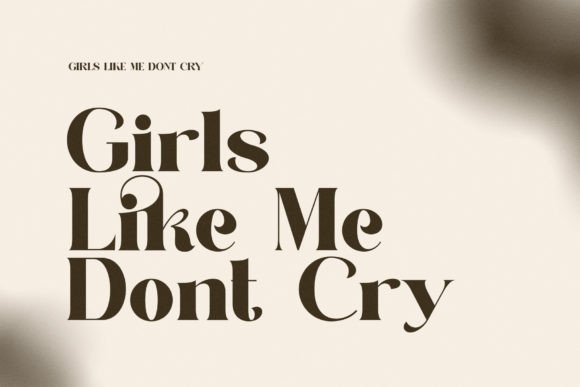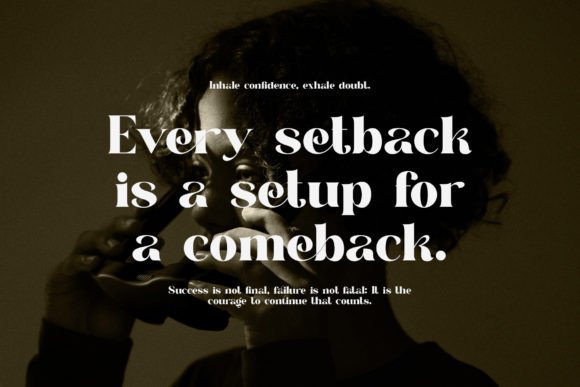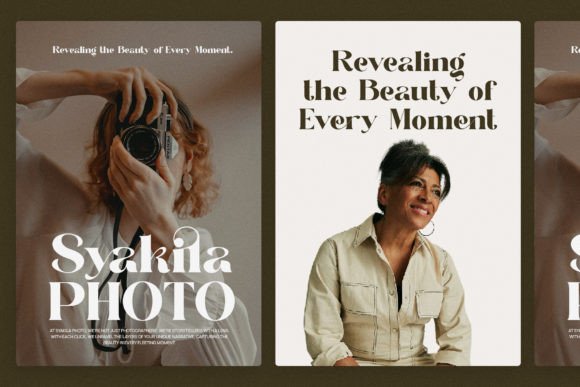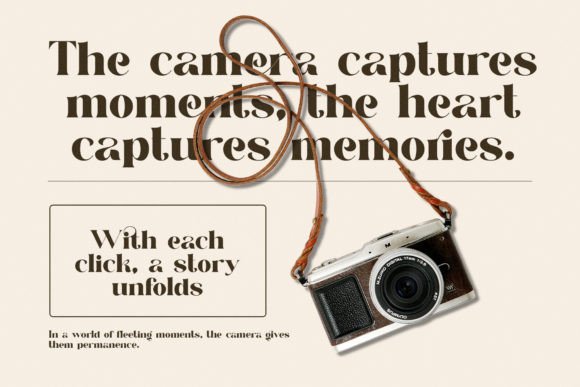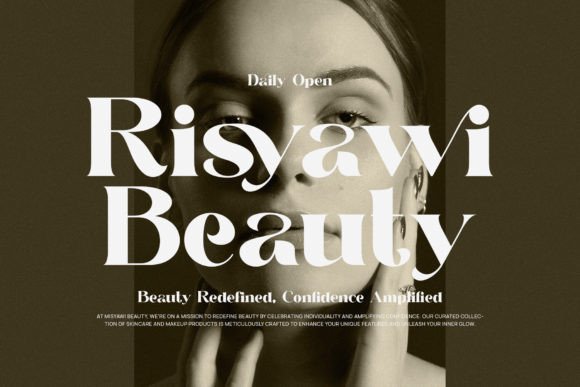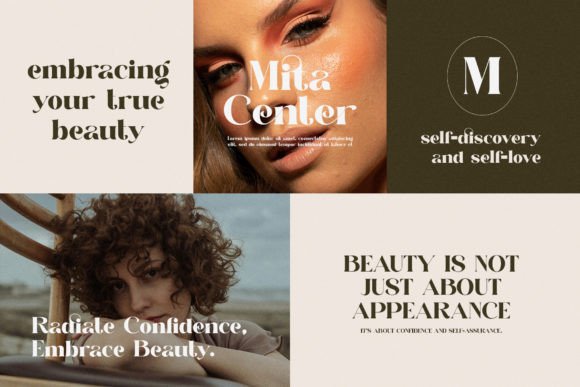
Introducing Genik Font: Elevate Your Designs with Elegance and Sophistication
Are you a designer or crafter looking for a font that exudes elegance and sophistication? Look no further than Genik Font, a stunning serif font that is sure to elevate the beauty of your projects. With its delicate and classy look, Genik is the perfect choice for those who want to add a touch of refinement to their designs.
What Makes Genik Font So Special?
Genik Font is an elegant serif font that features a very delicate and classy look. Not too thin and not too thick, balanced and varied, Genik was designed to enhance the beauty of your projects. The font’s balanced strokes and varied letterforms create a sense of harmony and visual flow, making it perfect for a wide range of design applications.
Key Features of Genik Font
- Elegant Serif Design: Genik Font features a classic serif design that is both timeless and sophisticated.
- Delicate and Classy Look: The font’s delicate and classy look makes it perfect for designs that require a touch of elegance.
- Balanced and Varied: Genik Font’s balanced strokes and varied letterforms create a sense of harmony and visual flow.
- Perfect for a Wide Range of Design Applications: From luxury brands to elegant wedding designs, Genik Font is versatile enough to be used in a variety of design projects.
Why Choose Genik Font?
There are many fonts available that claim to be elegant and sophisticated, but Genik Font stands out from the rest. Here are just a few reasons why:
- Unique and Distinctive: Genik Font has a unique and distinctive look that sets it apart from other serif fonts.
- Highly Legible: Despite its delicate look, Genik Font is highly legible, making it perfect for body text and headlines.
- Easy to Pair with Other Fonts: Genik Font pairs well with a variety of other fonts, making it easy to use in a wide range of design applications.
How to Use Genik Font in Your Designs
Genik Font is a versatile font that can be used in a wide range of design applications. Here are just a few ideas to get you started:
- Luxury Brands: Use Genik Font to create elegant and sophisticated logos, business cards, and marketing materials for luxury brands.
- Wedding Designs: Genik Font is perfect for wedding designs, including invitations, programs, and wedding websites.
- Packaging Design: Use Genik Font to create elegant and sophisticated packaging designs for high-end products.
In conclusion, Genik Font is a stunning serif font that is sure to elevate the beauty of your projects. With its delicate and classy look, balanced and varied design, and highly legible letterforms, Genik Font is the perfect choice for designers and crafters who want to add a touch of elegance and sophistication to their designs.